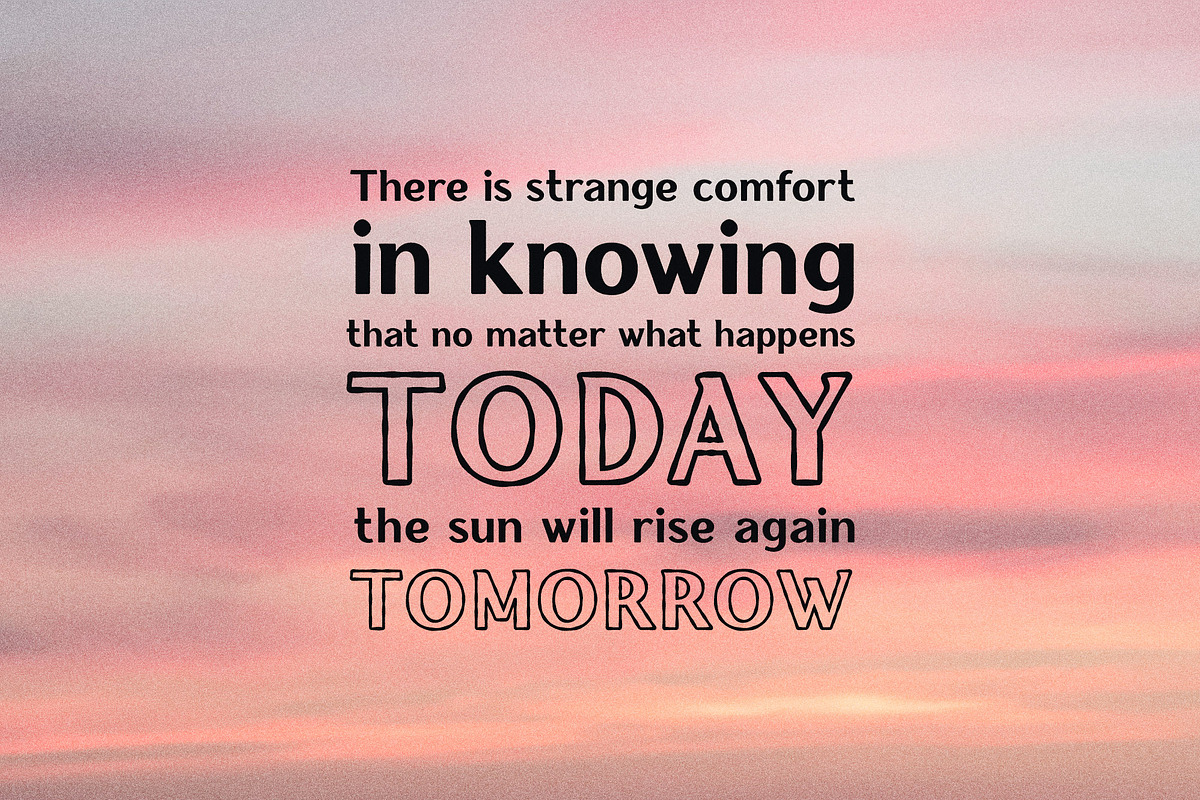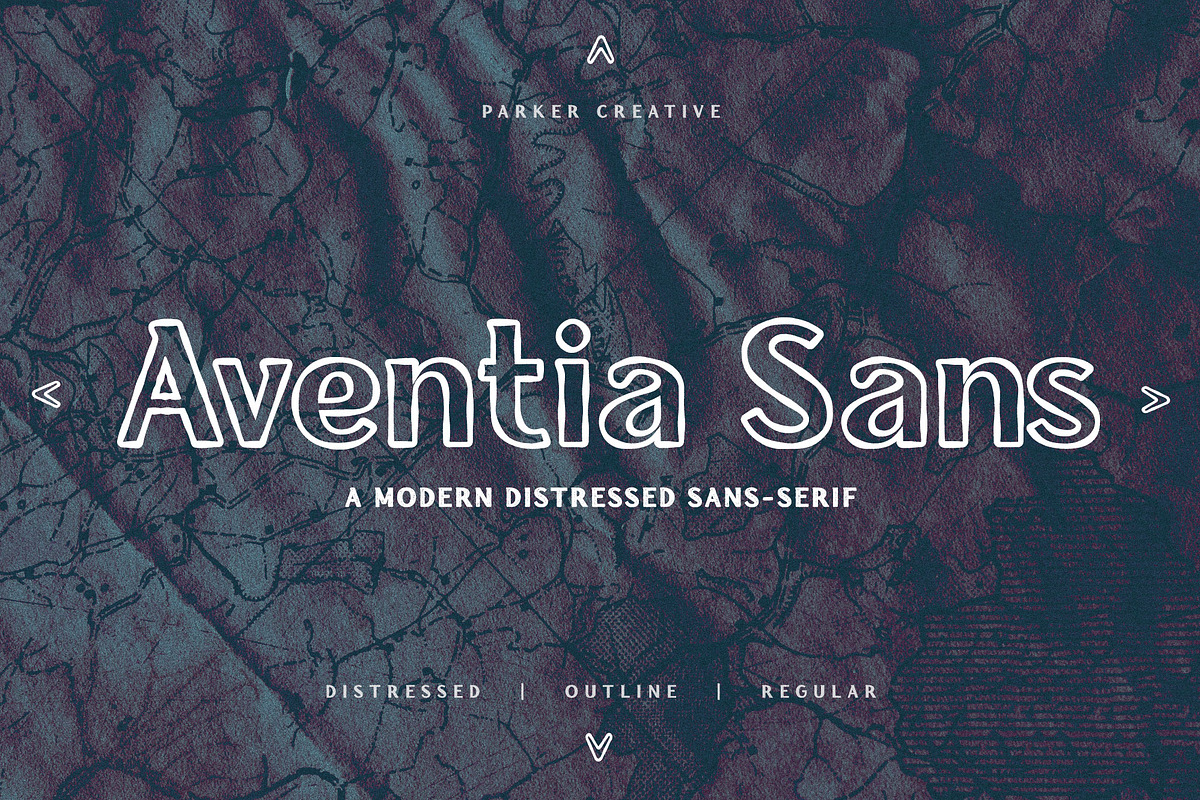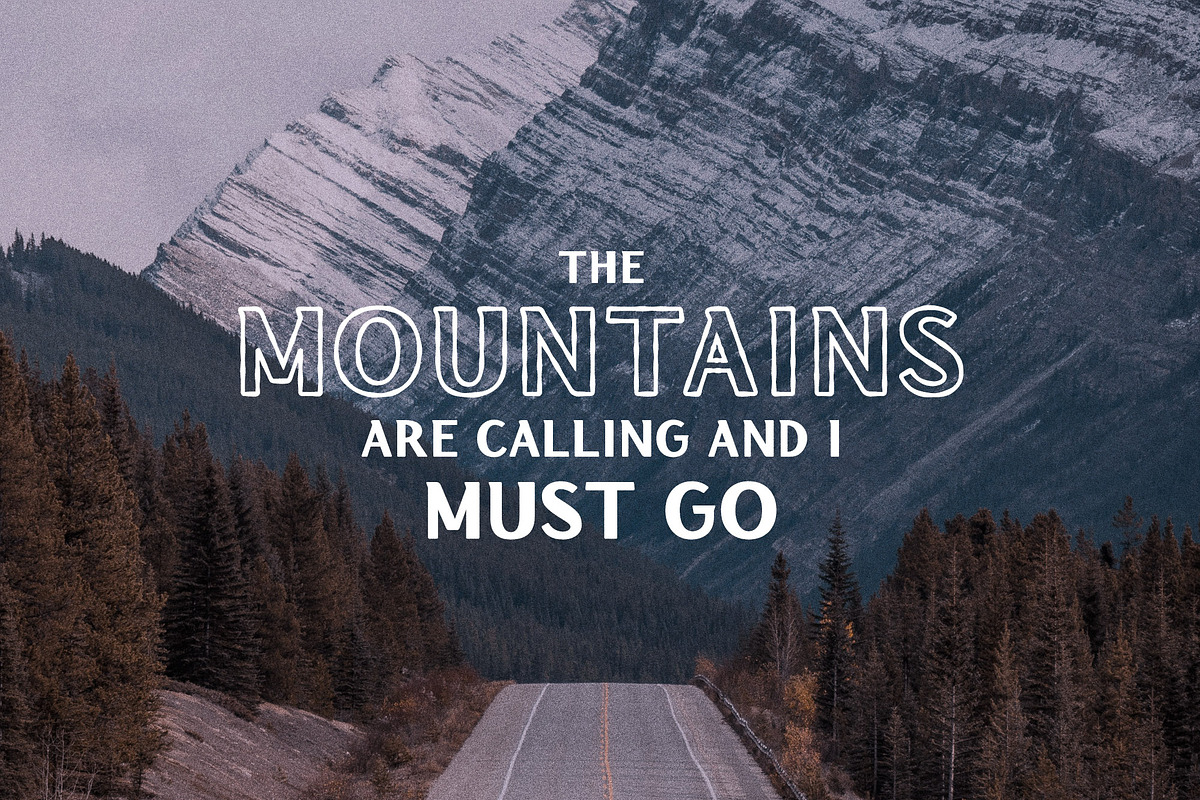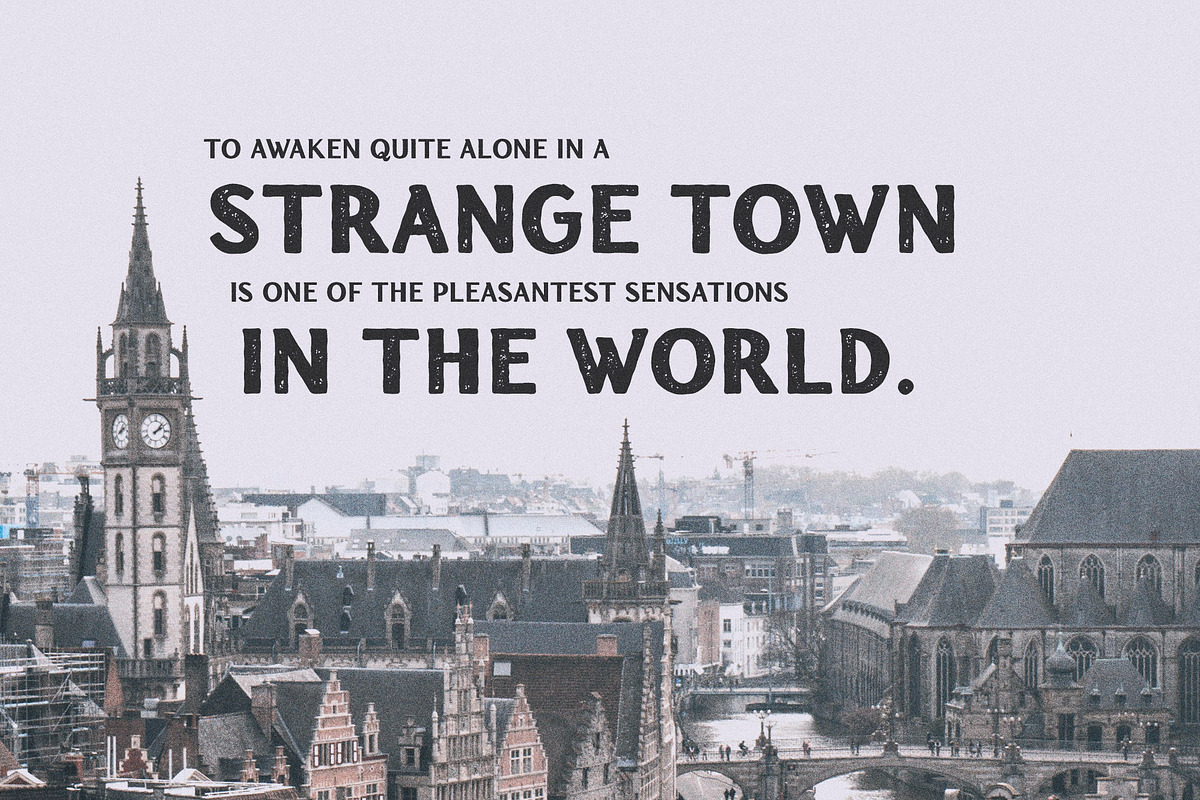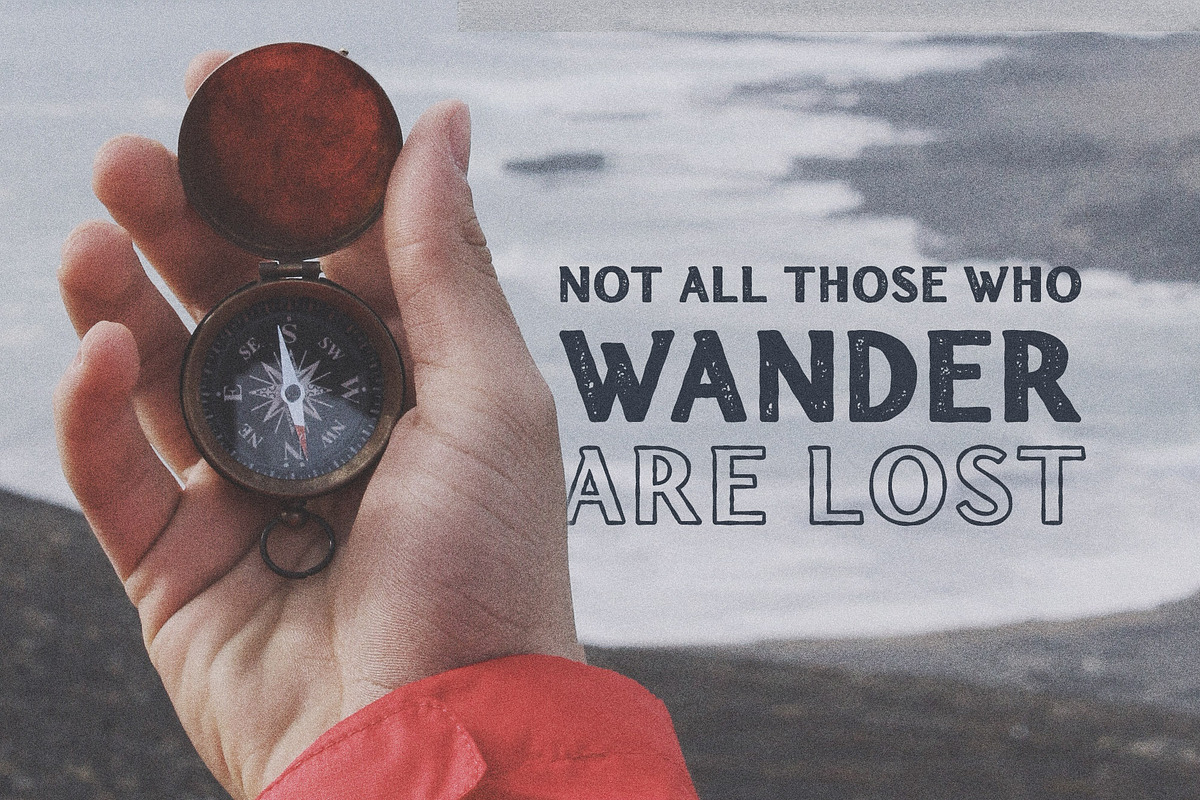
Aventia Sans - Modern & Distressed
Introducing Aventia Sans, a modern distressed sans-serif. Inspired by classic medieval maps, Aventia combines the vintage look of those old maps with modern distressing and font outline styling. With modern letterforms and rough edges, Aventia is a great choice bold, adventurous design, not to mention modern map design!
- An expanded multilingual character set + symbols is included!
- Three variations of Aventia Sans are available: Regular, Distressed, and Outline,